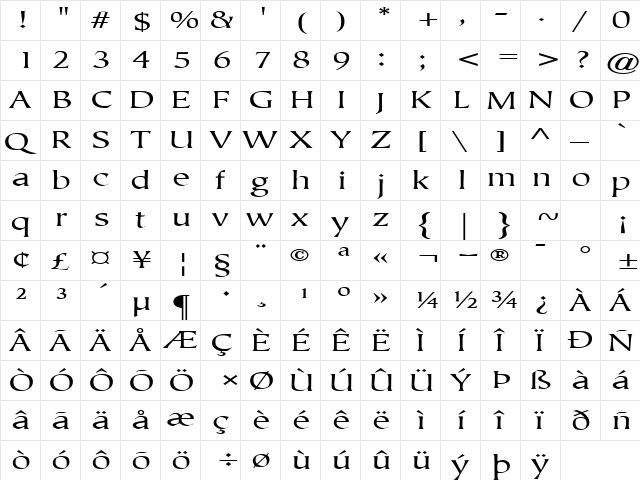
JusticeSystemExtended Regular
Design Context for JusticeSystemExtended Typeface
JusticeSystemExtended takes a measured approach to typography — its balanced proportions and neutral character make it a reliable workhorse for both digital and print work.